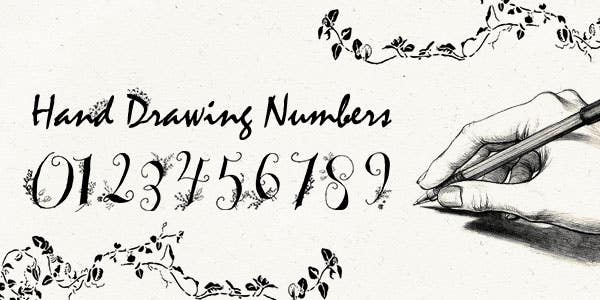
When it comes to fonts, everyone typically thinks of a bunch of letters, right?
Everyone seems to forget that you use fonts to display numbers too. And you’ll need something just as stunning and eye-catching to do so. Numbers are an important way of highlighting information in headlines, lists and infographics. When you are choosing a font, make sure you’re also considering the way each of the numbers are presented.
To make your design life easier, we’ve handpicked a range of cool number fonts that will help your numbers to stand out.
01. Vintage Font
It was love at first sight with this number font. Vintage Font is the most beautiful font on this list, for sure (not to mention the most colorful). It is a little cutesy, but the floral shapes and contrast make it a very versatile font that you can use for webpages, posters, signage and print. The best part? You can pick this one up for free from Sellfy.
02. High Tide
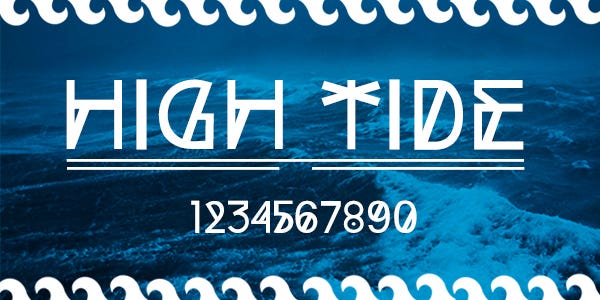
High Tide is a very clean number font, with a cool twist. It is a decorative typeface designed to stand out, and make an impact without sacrificing legibility. The dot and line details adds a symbolic, almost tribal air to the font which makes it really special. This striking font is perfect for posters and t-shirt designs. You can pick it up for free from Fontfabric.
03. Quarz 974
Quarz 974 is a beautiful number font inspired by simple geometric lines. It has a very distinct ancient greek letter feel to it - especially the numbers. It’s not the most legible number font, but it certainly has a unique flair to it that’ll get your logos, titles, and posters noticed. You can purchase this font for $40USD from Myfonts.
04. Klinic Slab
Klinic Slab is a retro font with a psychedelic flair. The exaggerated number font is the perfect blend of bold personality and functionality. A great font for posters, infographics and signage, you can purchase a commercial licence from Lost Type for $45USD.
05. Argo
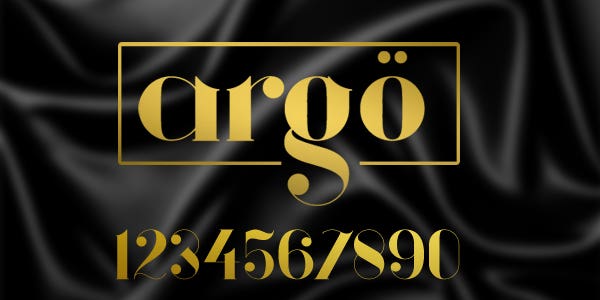
Looking for something with a little more modern elegance? Argo is is a number font that perfectly captures traditional aesthetics, but with thinner, shorter descenders to create more flow and versatility. This stylish and playful number font is one of our favorites, and you can purchase it for $30 USD from Sellfy.
06. Stitch
Stitch is a standout typeface which takes inspiration from elegant embroidery. With a slight abstraction about it, Stitch makes for a intriguing and beautiful design that you’ll want to use over and over again. Perfect for poster, infographics and signage you can pick up this font for $5USD from Gum Road.
07. Lato
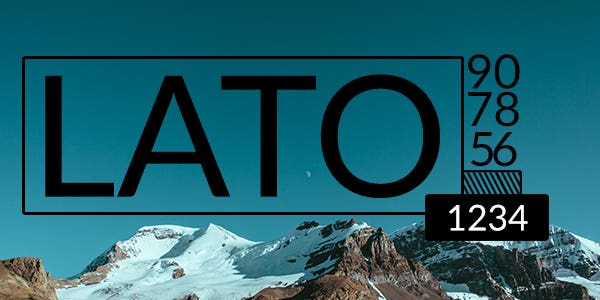
Let’s bring it back to the basics. Sometimes the way to a great number font, isn’t to tack on fancy flourishes here and there; it lies in its simplicity. Lato is one of those fonts. It’s has a sleek sanserif look, and with a variety of weights to choose from, it's a versatile font that works perfectly for web page display. It’s a free font that you can download from Font Squirrel.
08. FF DIN
FF DIN is another classic sanserif font that gets the job done without the extra ornaments. It’s a sharper font with several stylized versions. The only downside? It doesn’t come cheap. You can purchase this number font FROM AU$69, from Fontshop.
09. Kari
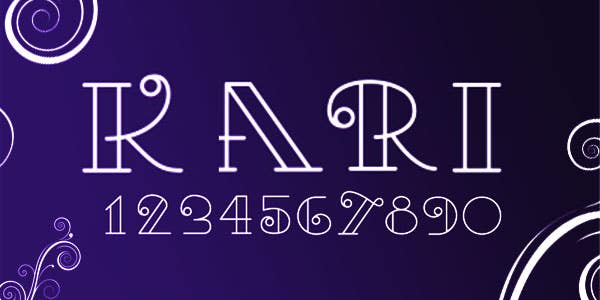
Designer: Javier Rivero
Kari is a playful number font, with great personality. The curls at the ends of the numbers add a pretty touch to the font. Perfect for greeting cards, invitations and sinage. You can pick up this number font from Behance.
10. Kaligraf Latin
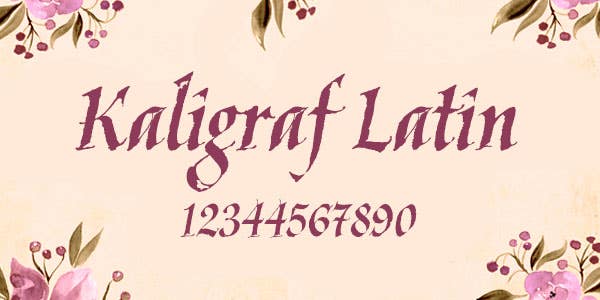
Designer: Lazar Dimitrijevic
Kaligraf Latin is a calligraphic number font, created from the author's personal handwriting. It offers gorgeous gothicized numbers that have an old-fashioned and bold touch. Perfect to dress up a wedding invitation, or a gothic poster. You can grab it for free from DaFont.
11. Friction
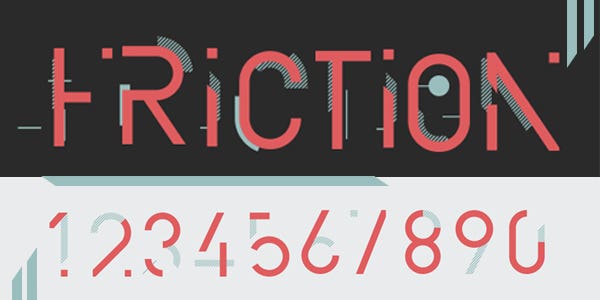
Designer: Jesper Bolther
Friction is a cool number font that combines minimal geometric aesthetics with slick movements and animations. If you’re looking for something that’ll look great, and move organically this is the font for you. You can purchase this font for $30EUR from Animography. Perfect for web page display, and even on posters as a static font.
12. Champagne
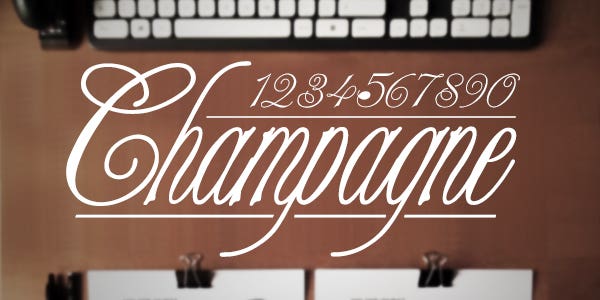
No design credit given.
Perfectly named, Champagne delivers a delicate and dainty number font. The perfect number font for that special occasion, your readers will be blown away by its swirls and curls. Use this font for wedding invitations. Champagne is available for free from DaFont.
15. Mondrian
Inspired by Piet Mondrian and his development of what he termed neoplasticism where he painted a grid of vertical and horizontal black lines with three primary colours. This font is perfect for art projects such as an artist's website, brochure, or within a piece of artwork such as a card, t-shirt, or other textile project. Available for free from Behance.